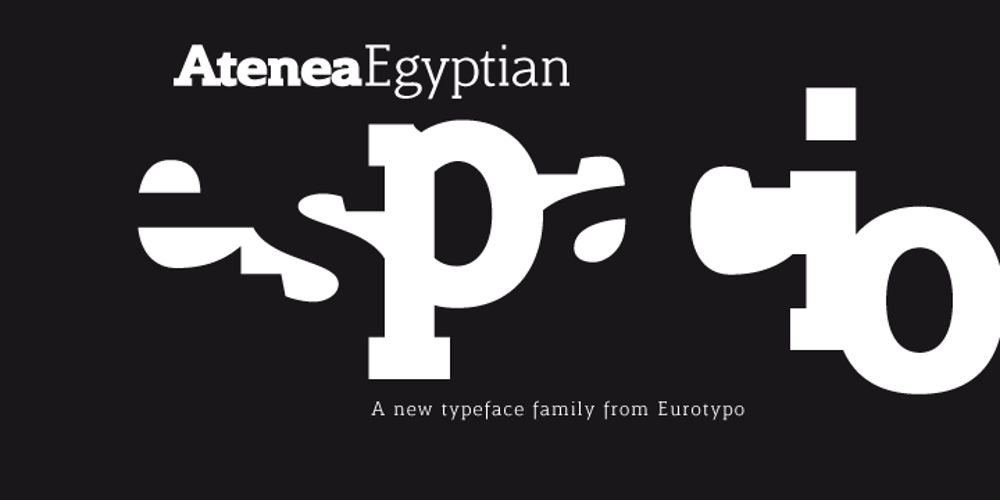
Atenea Egyptian Font Family was designed by Olcar Alcaide and published by Eurotypo. Atenea Egyptian contains 9 styles and family package options. Atenea Egyptian is a Slab serif, inspired in humanistic typeface references. It is a contemporary style based on high contrast and modular proportion with stylized rhythms. Atenea Egyptian includes standards and discretional ligatures, small caps, fractions, old style and lining numbers.